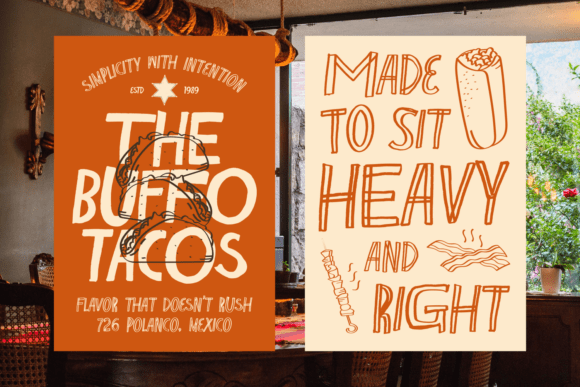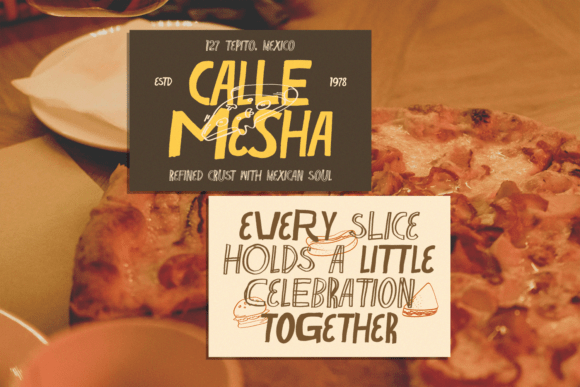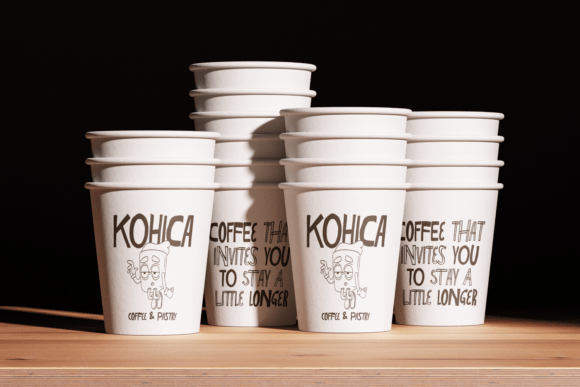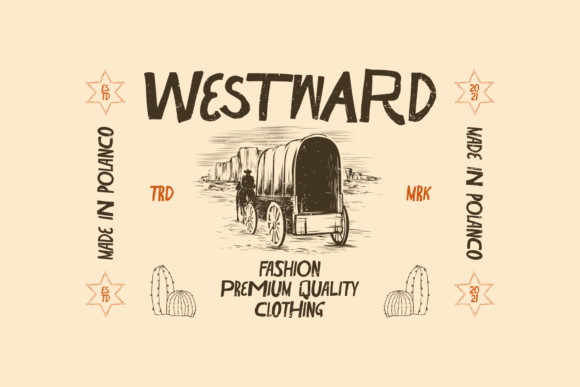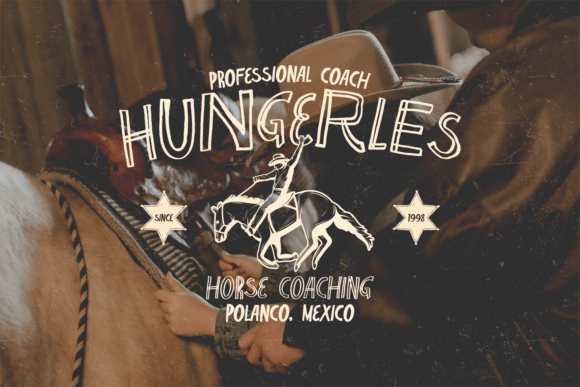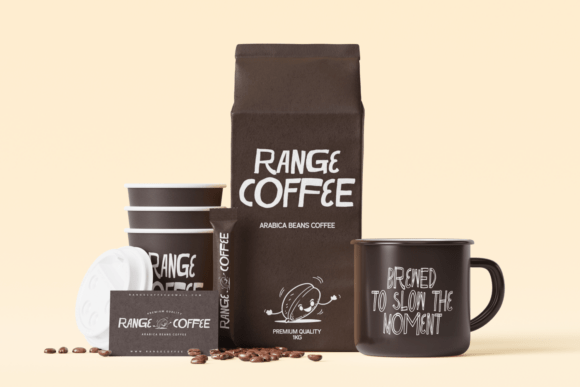
Introduction to Don Rancho Font Font
Fonts play a crucial role in design, and the Don Rancho Font font is a typeface that brings both character and versatility to any project. Whether you’re working on a branding project, a website, or a print design, the Don Rancho Font font offers a unique style that can elevate your work.
Don Rancho is a quirky hand-drawn western display font inspired by desert landscapes, vintage ranch signage, and Mexican street typography.
This font captures the imperfect charm of handcrafted lettering with rough edges, playful shapes, and expressive character forms Designed as a font duo, Don Rancho includes a bold rough style and a matching outline version that work beautifully together for layered designs.
Key Features of Don Rancho Font Font
Why Choose Don Rancho Font Font?
The Don Rancho Font font is more than just a typeface – it’s a design tool that helps you communicate your message with style and clarity. Its unique character set and versatile design make it suitable for a wide range of applications, from elegant invitations to bold headlines.
With its carefully crafted letterforms and balanced proportions, the Don Rancho Font font ensures readability and visual appeal across all mediums.
What makes Don Rancho Font font special?
The Don Rancho Font font stands out with its unique design, exceptional readability, and versatility across various design applications.